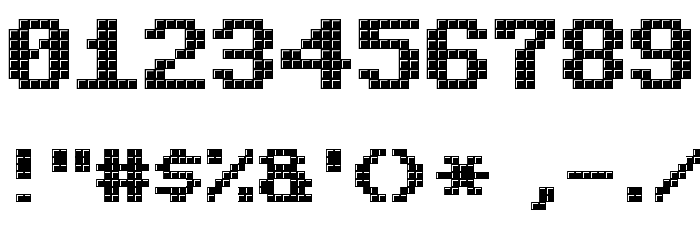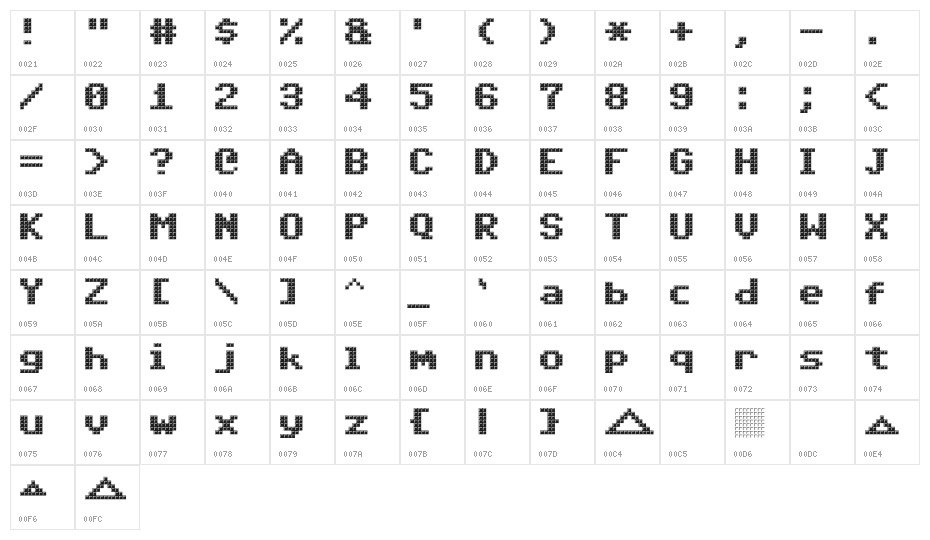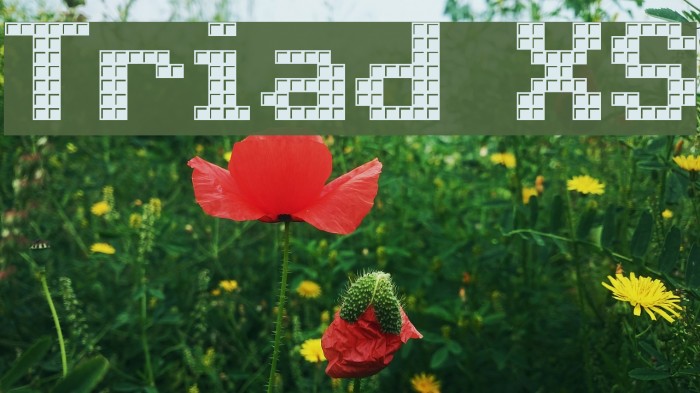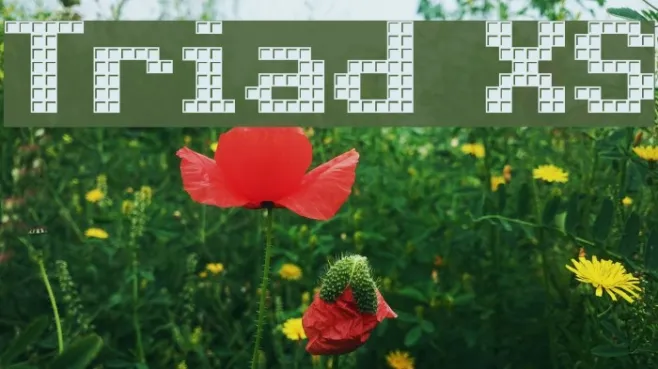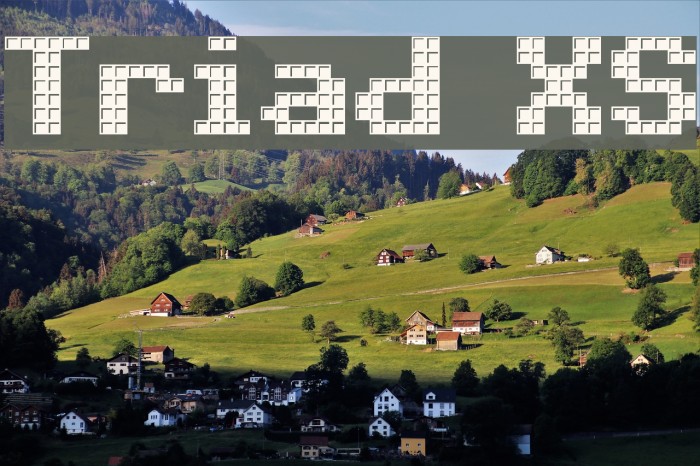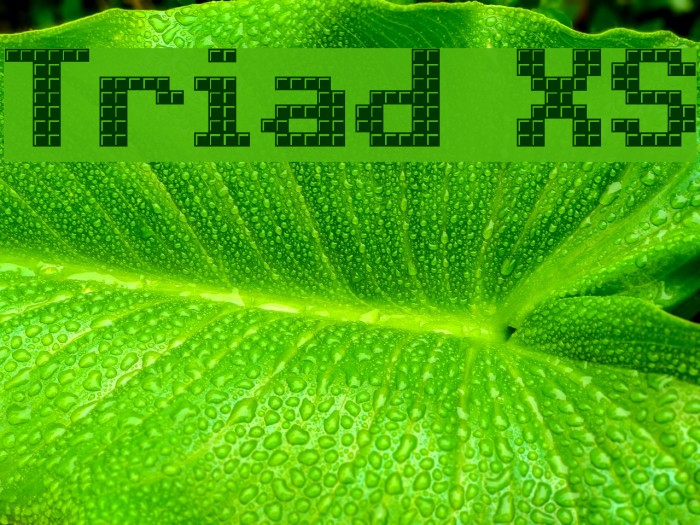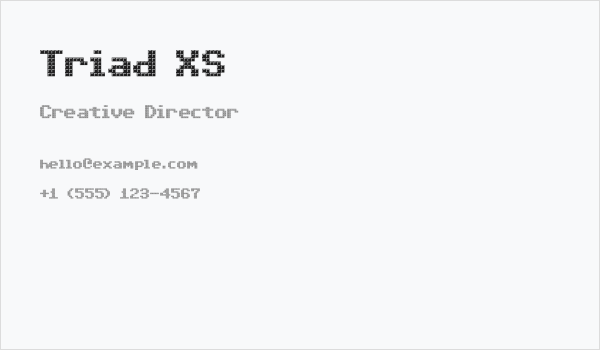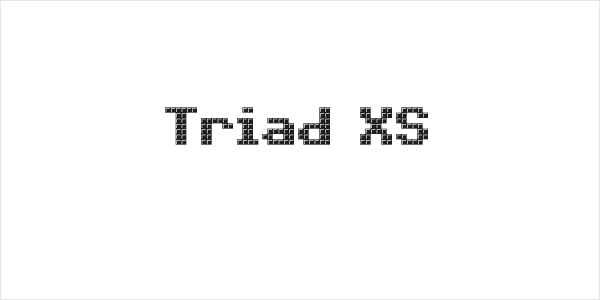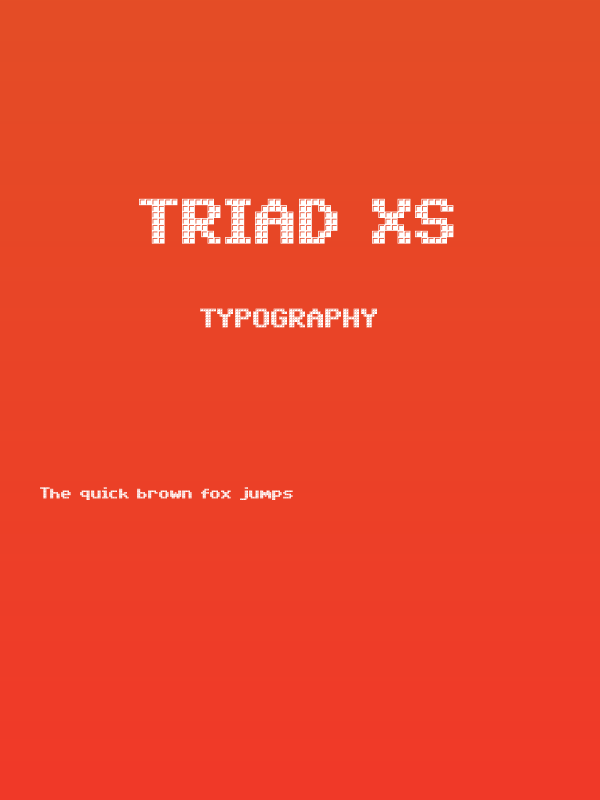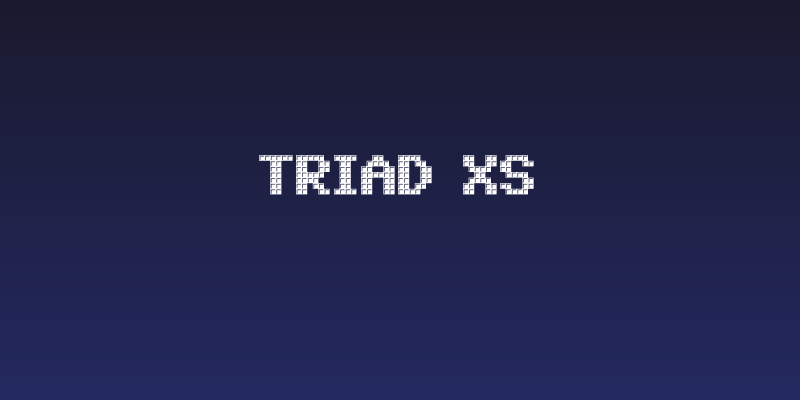
Triad XS Font
Triad XS Description
This font features a unique, pixelated style reminiscent of digital or retro video game aesthetics. Each character is composed of small, square blocks that create a distinct, grid-like appearance. The uppercase and lowercase letters maintain a consistent blocky form, while numbers and special characters follow the same design principle. The font's geometric structure gives it a modern, playful feel, making it ideal for projects that require a digital or nostalgic touch. Its uniformity and clear legibility make it suitable for various creative applications.
| Use Case | Logos, Headlines, Digital Art |
| Proposed Projects | Ideal for video game design, digital art projects, retro-themed posters, and tech-related branding. |